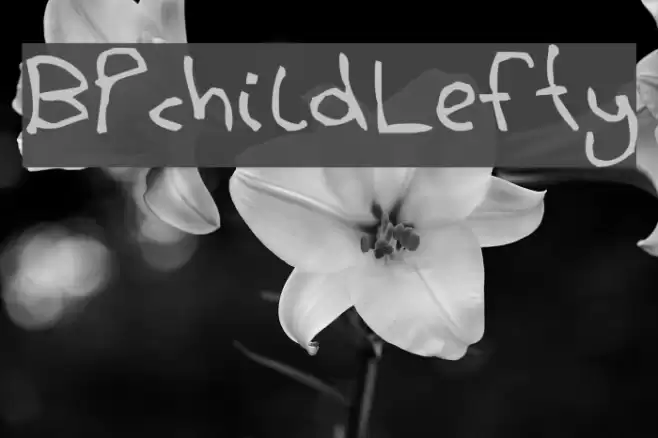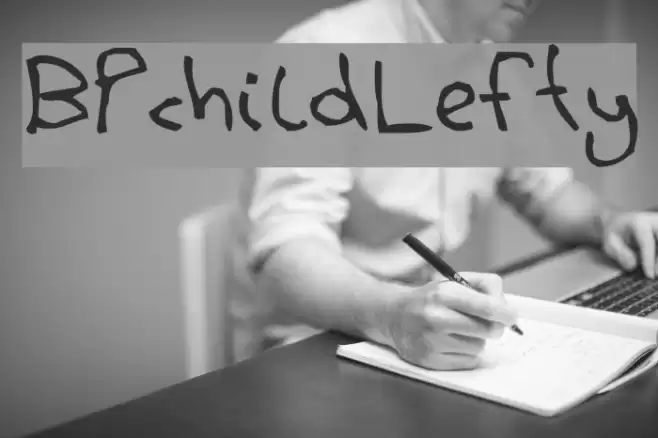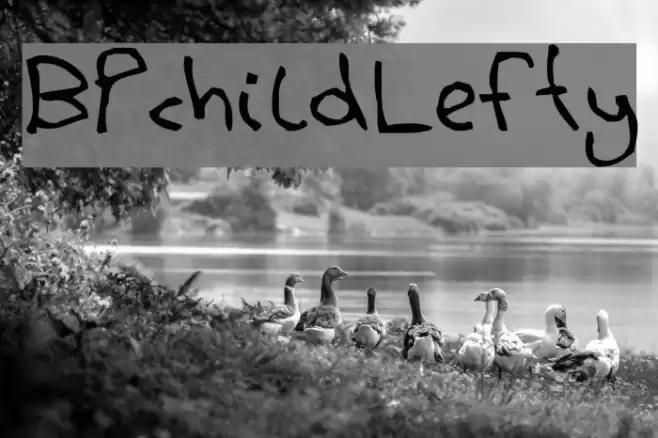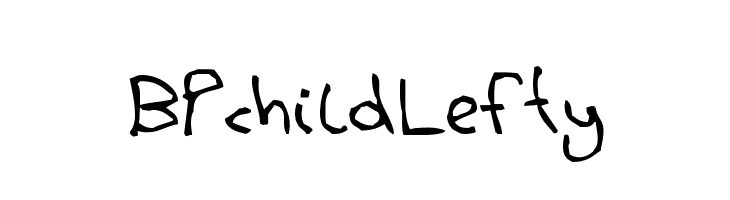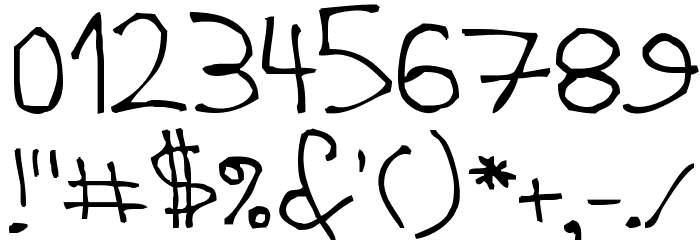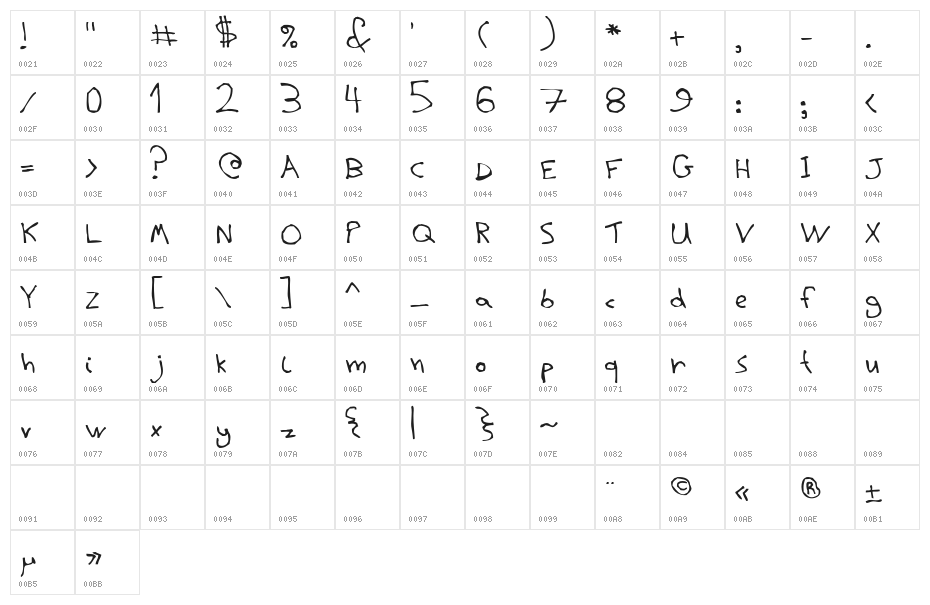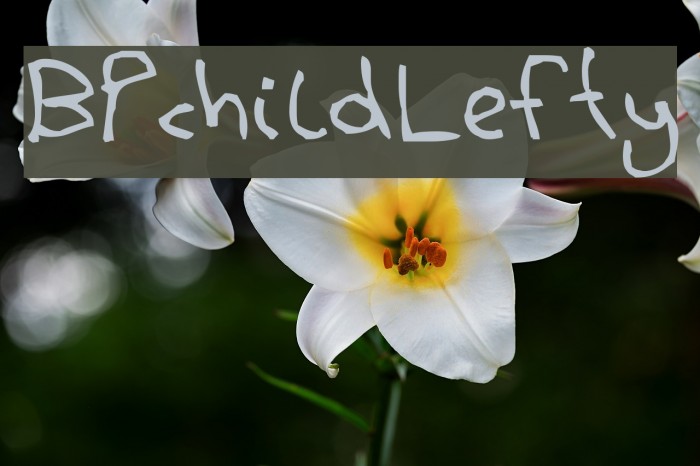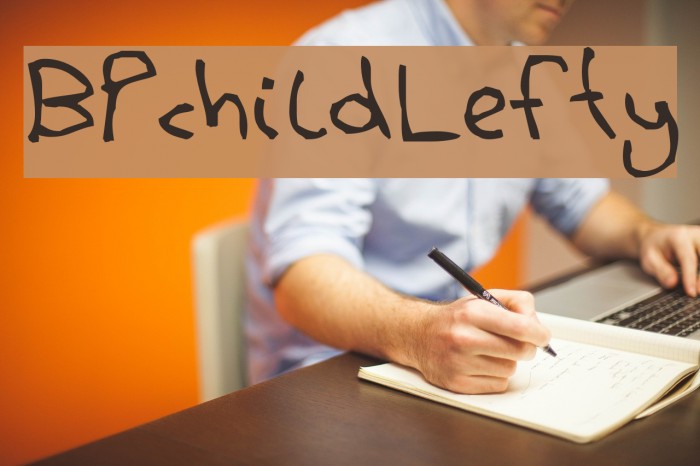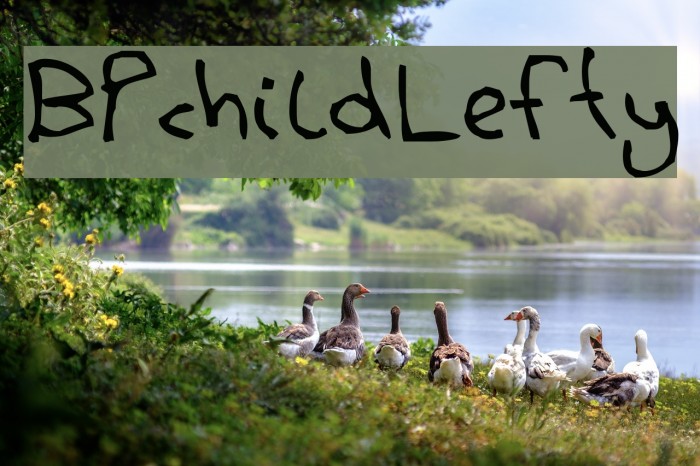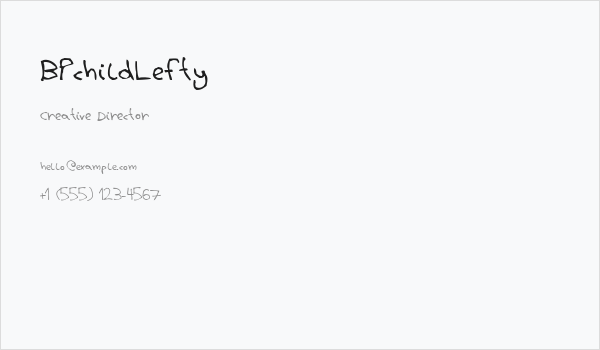
BPchildLefty Font
BPchildLefty Description
This font exudes a playful and informal vibe, reminiscent of a child's handwriting. The characters are irregular and slightly tilted, giving it a whimsical and spontaneous appearance. The strokes are uneven, with varying thickness that adds to its charm. The uppercase and lowercase letters maintain a consistent style, while the numerals and special characters integrate seamlessly into the overall design. This font is perfect for projects that require a personal touch or a sense of creativity and fun.
A playful, handwritten-style font with irregular, whimsical strokes from Uncategorized fonts.
- Proposed Projects: Ideal for children's books, playful branding, casual invitations, and creative posters.
- Overall Style: Playful, Informal
- Use Case: Headlines, Casual text, Creative projects